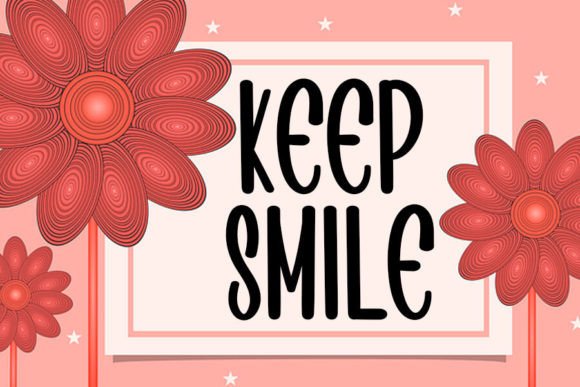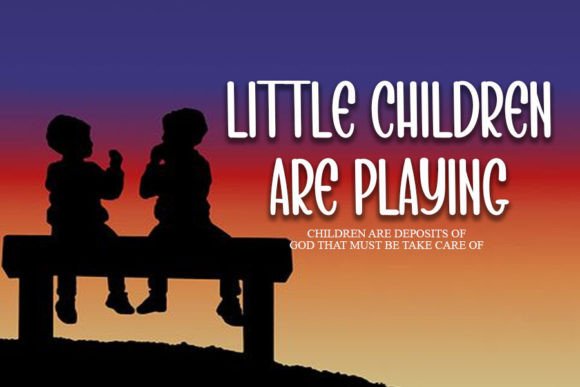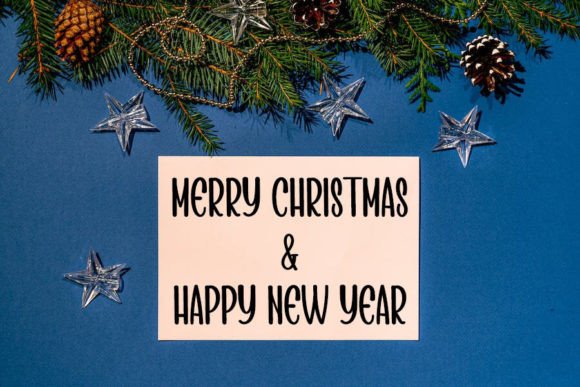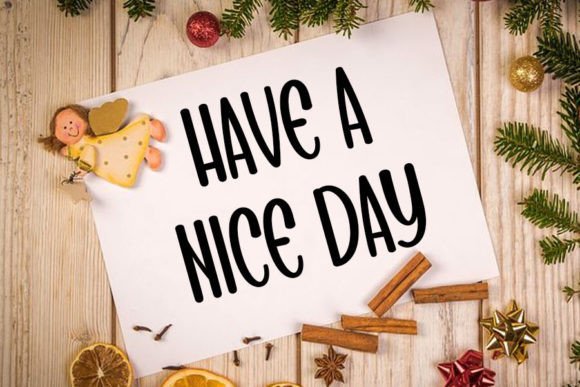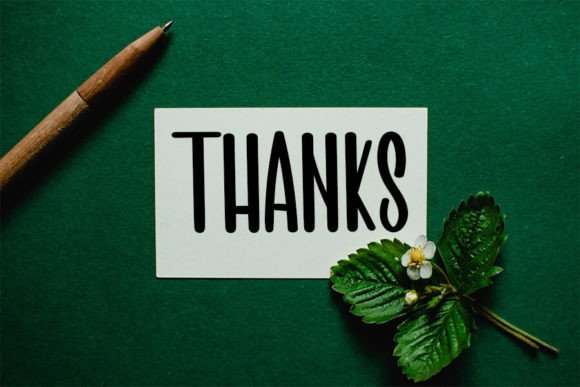
Introducing Christmas Happiness Font: The Perfect Addition to Your Holiday Designs
Are you looking for a font that embodies the spirit of Christmas and adds a touch of elegance to your designs? Look no further than the Christmas Happiness Font! This beautiful handwritten font is perfect for designers and crafters who want to create spectacular holiday-themed projects that stand out from the crowd.
What Makes Christmas Happiness Font So Special?
CHRISTMAS HAPPINESS is a neat and beautiful handwritten font that is depicted with a touch of elegance, making it perfect for your favorite projects. Its incredibly distinct and timeless style will make your designs fall in love with its charm. The font’s unique and sophisticated look is sure to capture the essence of the holiday season and add a touch of magic to your creations.
Key Features of Christmas Happiness Font
- Handwritten with love: The Christmas Happiness Font is a beautiful handwritten font that has been crafted with love and care, giving it a personal and unique touch.
- Elegant and sophisticated: The font’s elegant and sophisticated style makes it perfect for a wide range of projects, from holiday cards and invitations to decorations and more.
- Distinct and timeless: The font’s distinct and timeless style ensures that your designs will stand out from the crowd and remain relevant for years to come.
- Perfect for designers and crafters: Whether you’re a professional designer or a crafter, the Christmas Happiness Font is the perfect addition to your holiday projects.
Uses for Christmas Happiness Font
The Christmas Happiness Font is versatile and can be used for a wide range of projects, including:
- Holiday cards and invitations: Create beautiful and unique holiday cards and invitations that will impress your friends and family.
- Decorations and signage: Use the font to create stunning decorations and signage for your holiday events and parties.
- Digital and print projects: The font is perfect for both digital and print projects, including social media graphics, blog posts, and more.
- Crafting and DIY projects: Add a touch of elegance to your crafting and DIY projects, such as handmade gifts, ornaments, and more.
Why Choose Christmas Happiness Font?
With so many fonts to choose from, why choose Christmas Happiness Font? Here are just a few reasons:
- Unique and exclusive: The Christmas Happiness Font is a unique and exclusive font that will give your designs a distinctive look.
In conclusion, the Christmas Happiness Font is a beautiful and elegant handwritten font that is perfect for designers and crafters who want to create spectacular holiday-themed projects. With its unique and timeless style, this font is sure to add a touch of magic to your designs and make them stand out from the crowd. So why wait? Download the Christmas Happiness Font today and start creating your own stunning holiday designs!